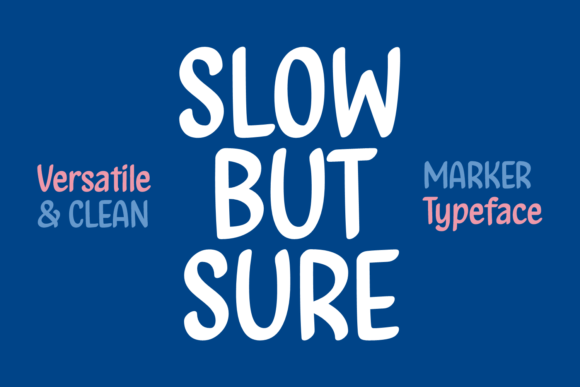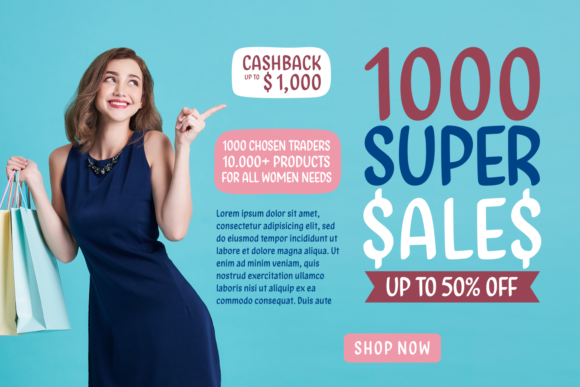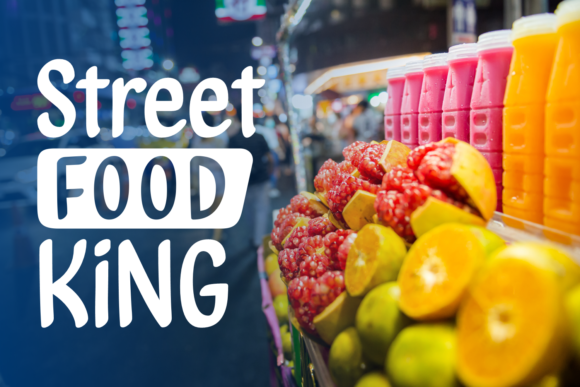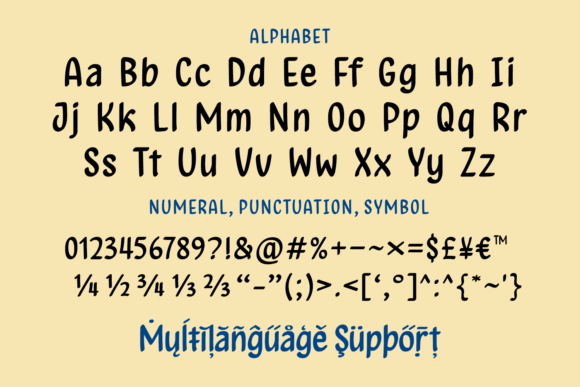
Slow but Sure Font
About Slow but Sure Font
Slow But Sure is a fun handwritten font, created in a style making your text look like it is written with a marker pen. With its versatile and clean look, this makes the perfect for to use for your creative and crafting projects.